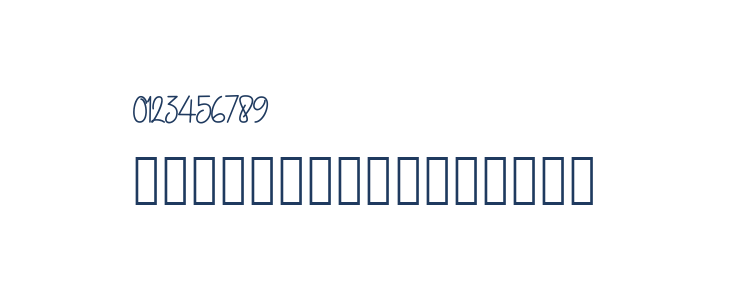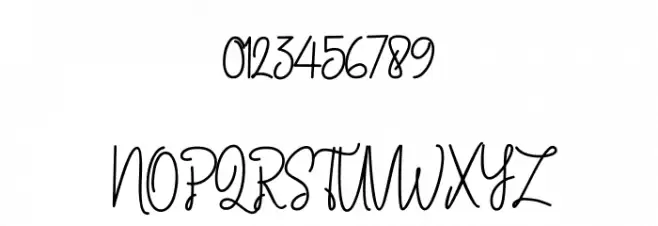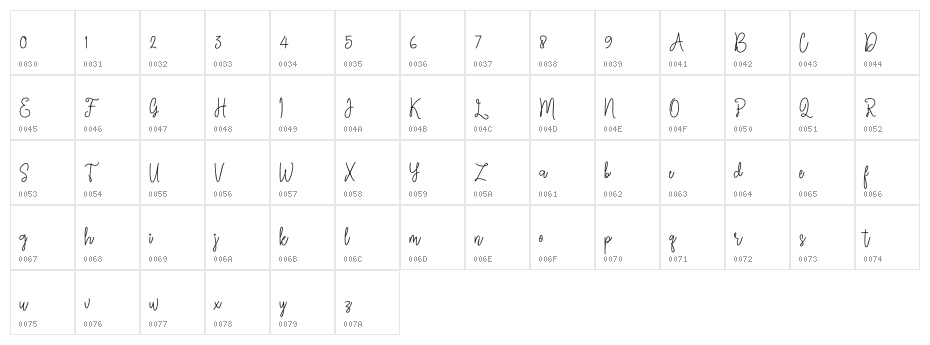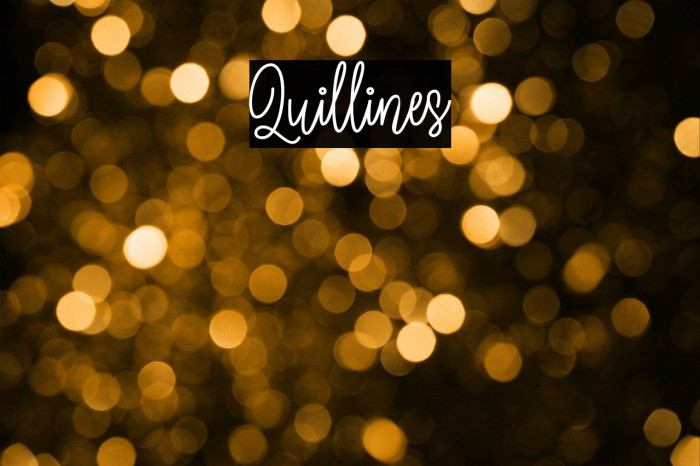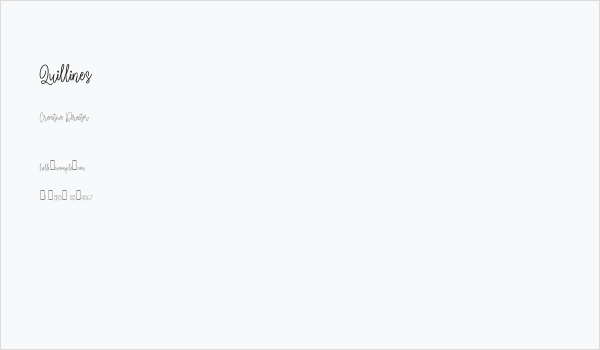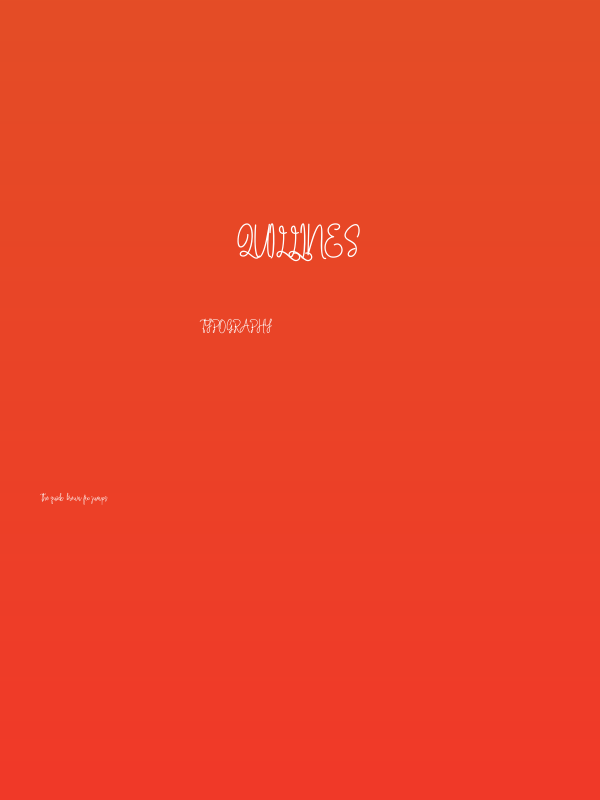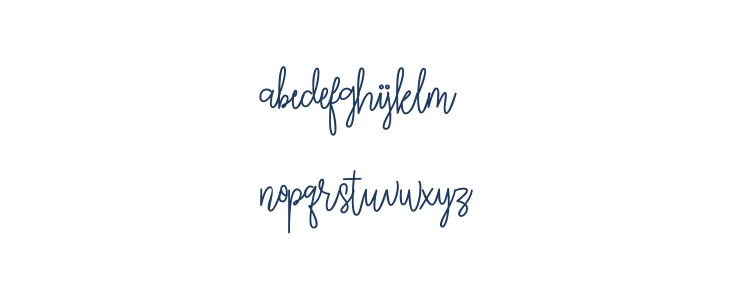
Quillines Font
Quillines Description
This elegant script font features a flowing, handwritten style with smooth, continuous strokes that create a sense of fluidity and grace. The uppercase letters are tall and slightly narrow, with distinctive loops and curves that add a touch of sophistication. The lowercase letters maintain a consistent height and are designed with a gentle slant, enhancing the handwritten feel. Numbers are crafted with the same attention to detail, ensuring they blend seamlessly with the alphabet. The special characters are thoughtfully integrated, maintaining the font's cohesive aesthetic. This font is perfect for projects that require a personal, artistic touch.